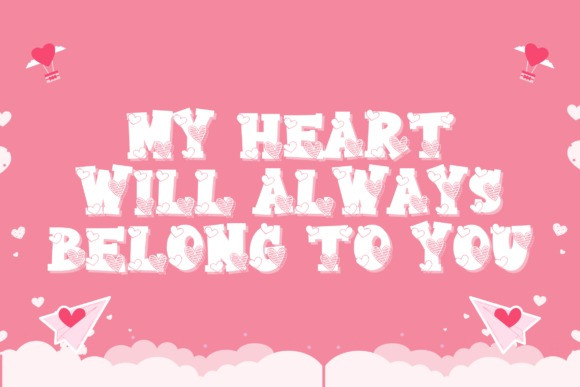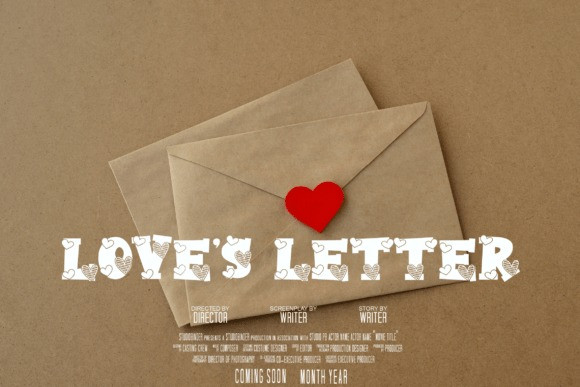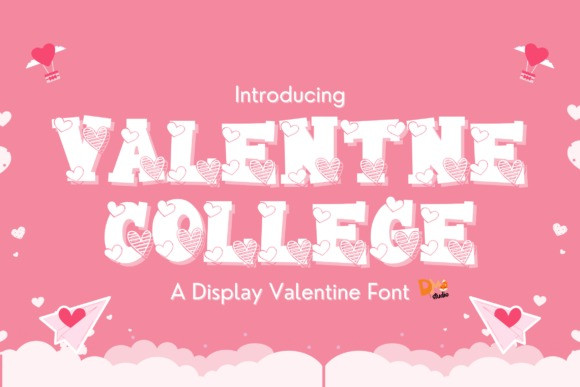
Valentine College Font
Valentine College Font a dynamic fusion of bold collegiate lettering and romantic elegance. This unique typeface embodies the robust demeanor of traditional varsity fonts while embracing enchanting, gentle details. It effortlessly complements university branding initiatives, adorns love-themed academia, and breathes life into sports team designs. With Valentine College Font, transform every college event, heartwarming greeting, or chic apparel design into a captivating blend of scholastic spirit and heartfelt passion. This font is also perfect for creating standout Valentine’s Day merchandise that speaks volumes in silence. Elevate your designs with the intriguing alliance of vigor and charm that is the Valentine College Font.